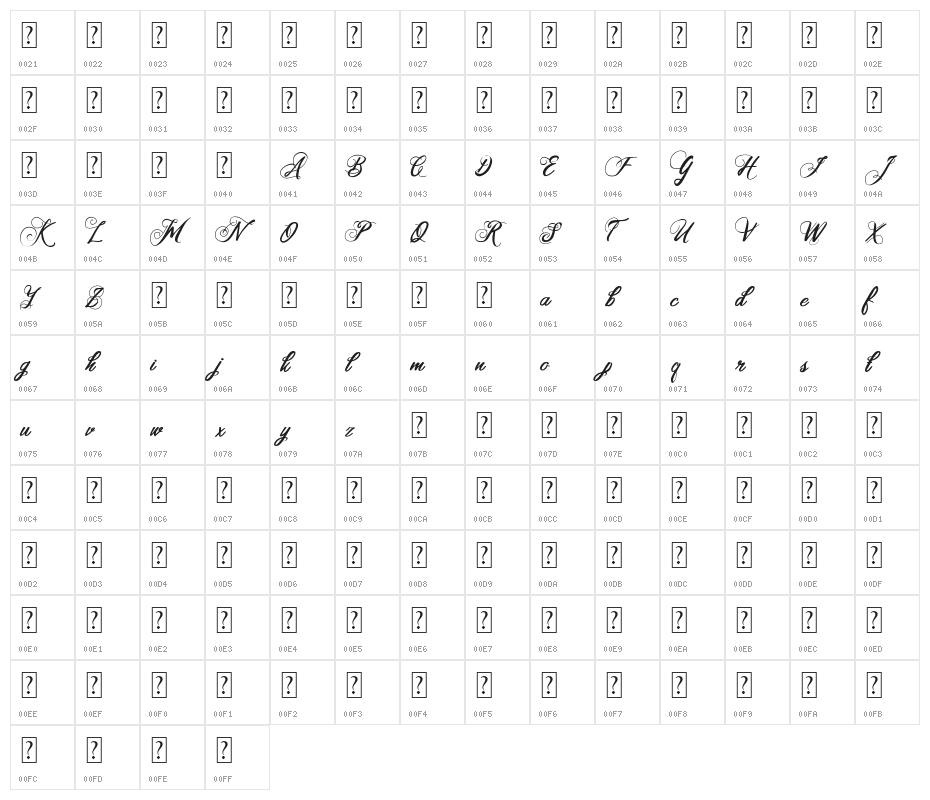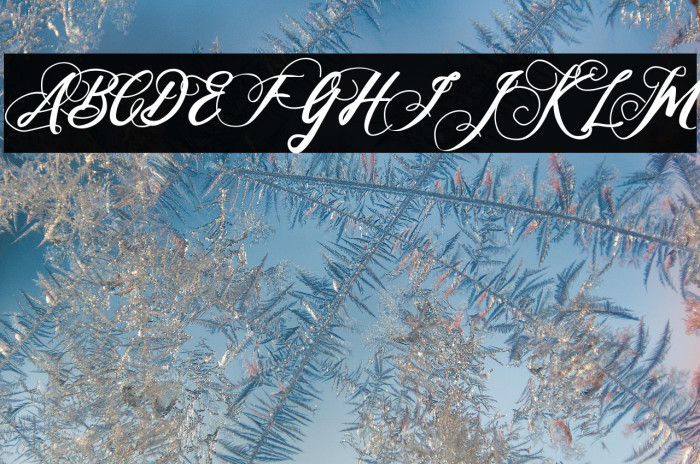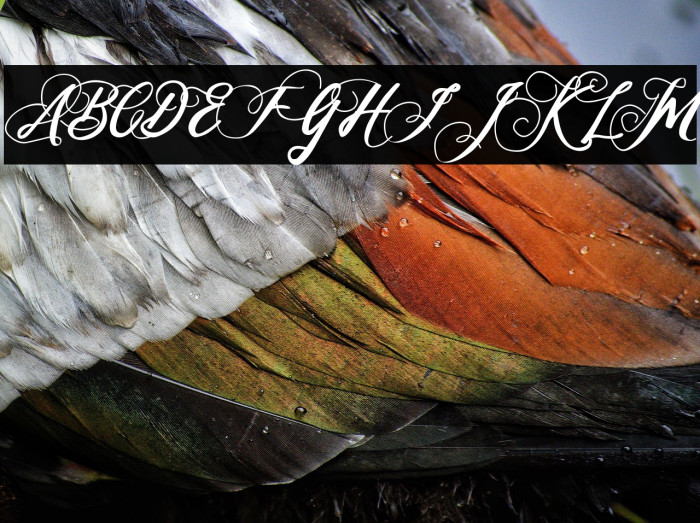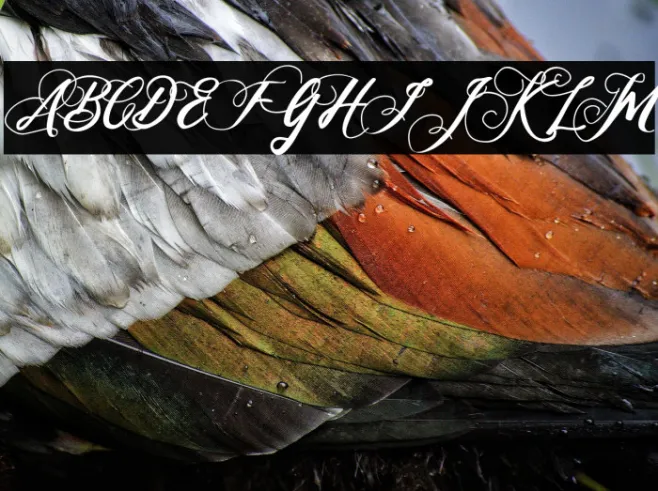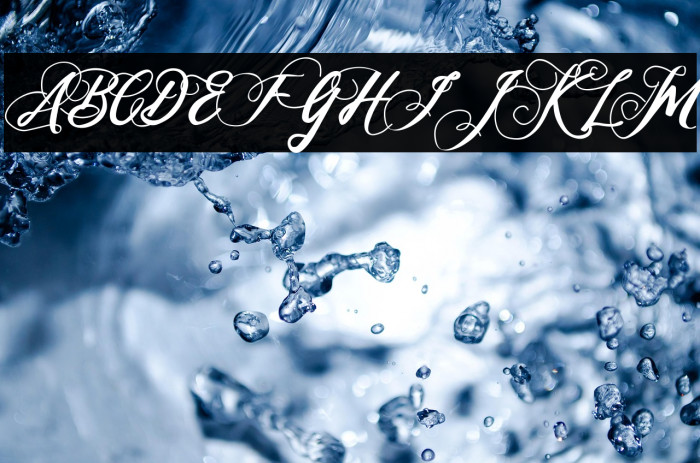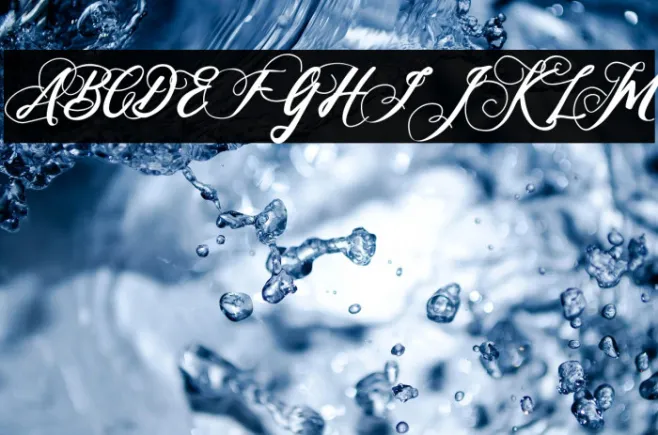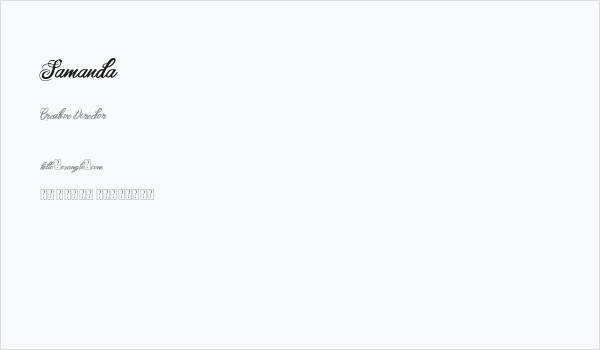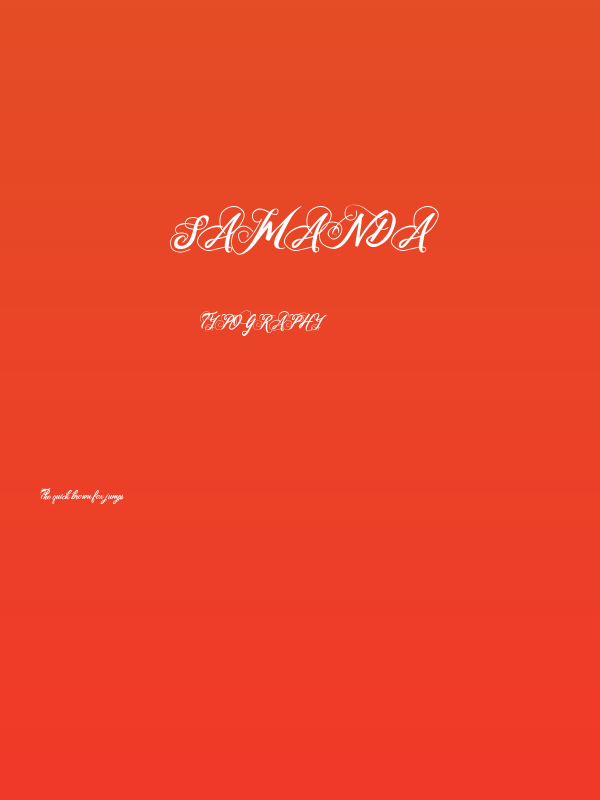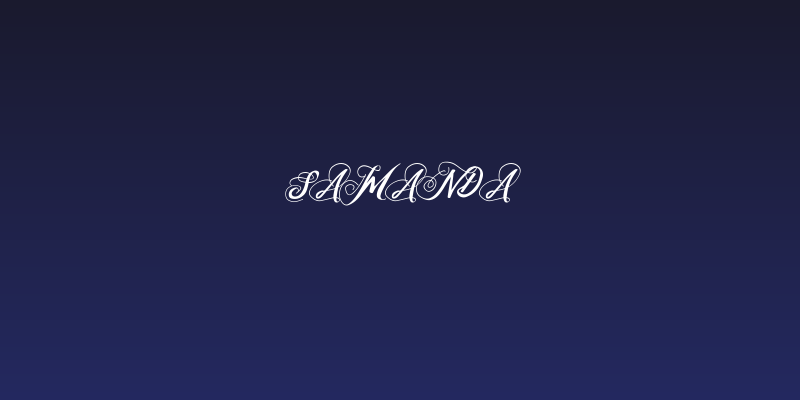
Samanda Font
Samanda Description
This font exudes elegance and sophistication with its intricate and flowing script style. The uppercase letters are adorned with elaborate swashes and flourishes, giving them a decorative and ornate appearance. The lowercase letters maintain a consistent cursive flow, enhancing readability while retaining a stylish flair. The overall design is reminiscent of classic calligraphy, making it suitable for formal and elegant applications. The font's graceful curves and loops create a sense of movement and fluidity, perfect for adding a touch of refinement to any project.
| Use Case | Logos, Invitations, Headlines |
| Proposed Projects | Ideal for wedding invitations, luxury branding, elegant stationery, and high-end product packaging. |